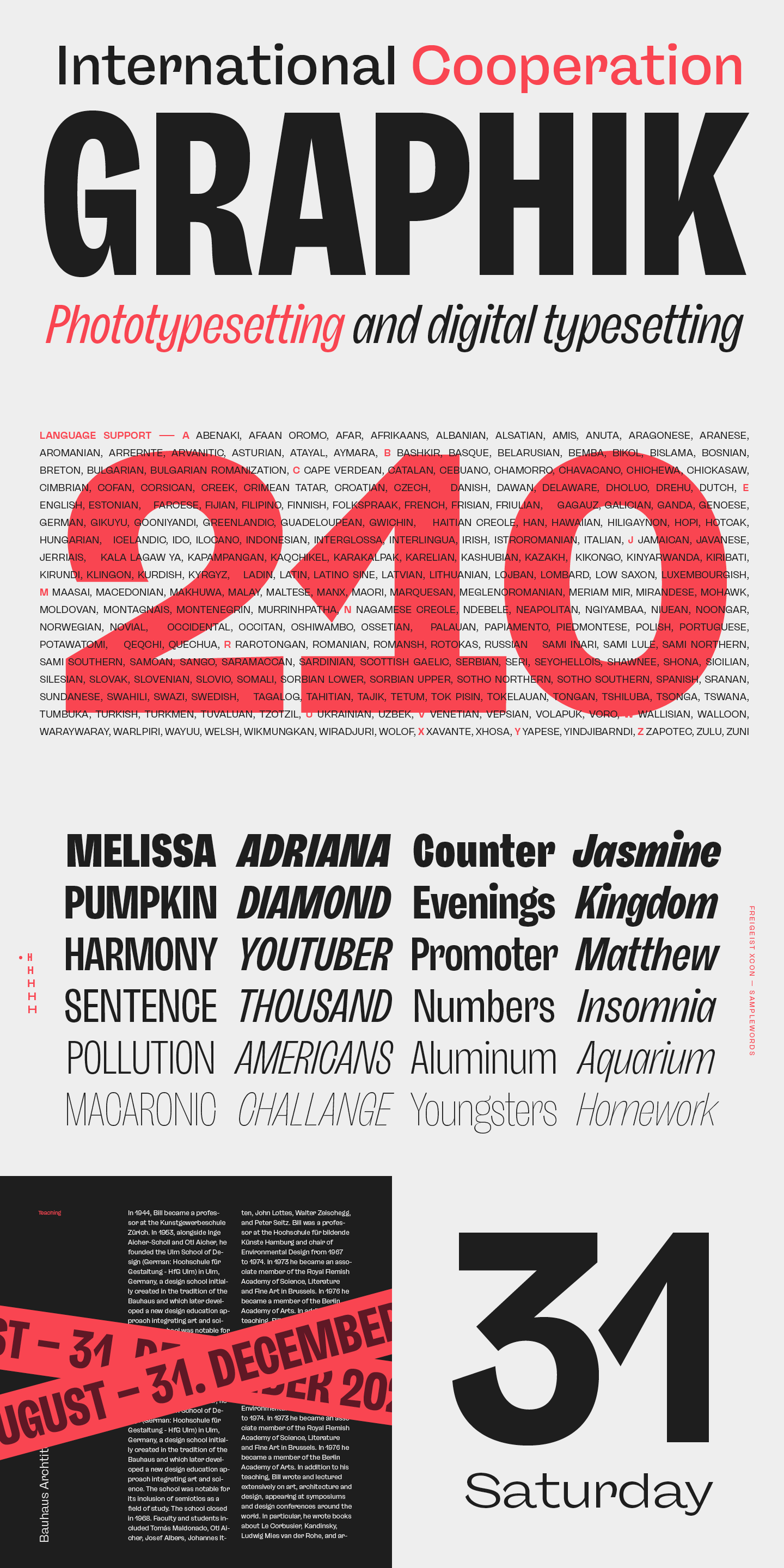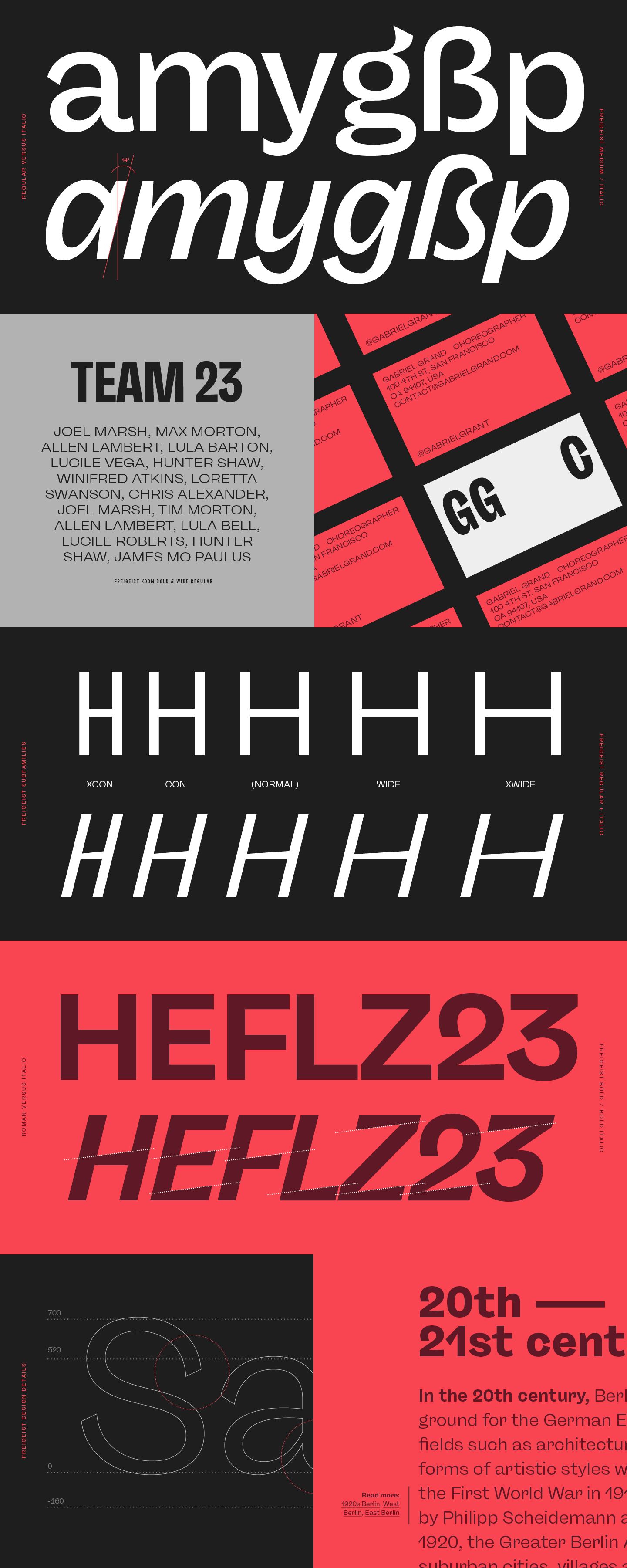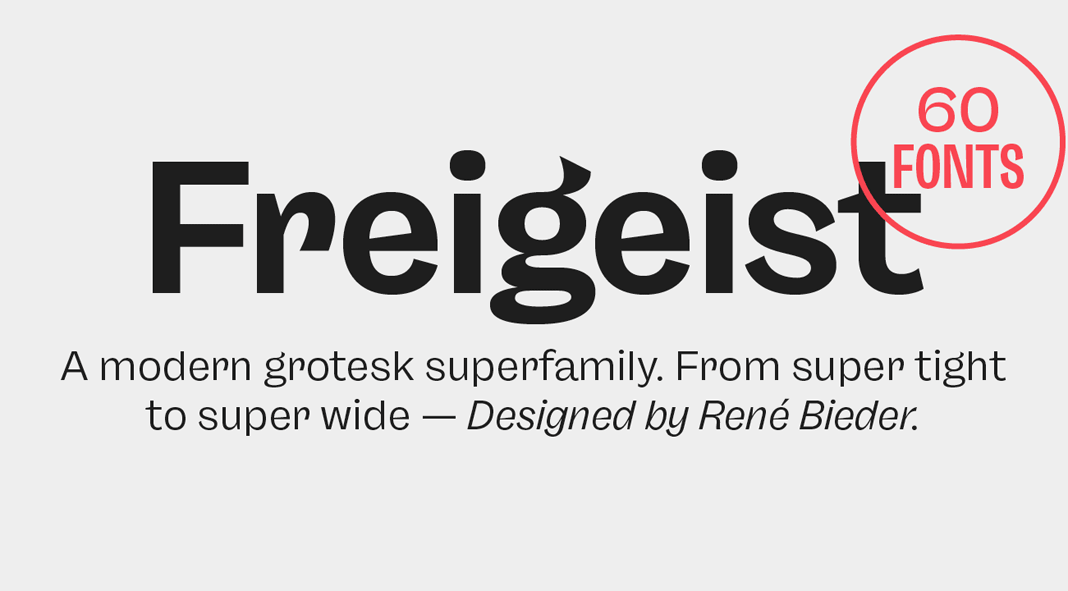
With Freigeist, German typeface designer René Bieder has created a unique superfamily consisting of a display sans and sans serif font family inspired by the early days of Grotesk typefaces.
The influences of the Freigeist font family are dating back long before Helvetica and other famous sans-serif typefaces have become standard fonts in our operating systems. The Freigeist font family captures the untamed pioneering innovations of type foundries from the 19th century such as Caslon or Stephenson Blake and puts them into a contemporary context. The result is a multi-faceted font family with a wide range of applications, styles, and features for today’s typesetting. Learn more below or click on one of the following links to purchase this outstanding family.
The characteristic design of Freigeist is dominated by a warm and dynamic style. It is inspired by various historical typeface designs such as Caslon’s Doric or the Grotesque variants of Stephenson Blake. Freigeist’s narrow terminals as well as its serpentine letter ‘S’ or the dynamic letter ‘g’ result in a unique appearance—especially in combination with ascenders that reach the cap-height only. Freigeist is available in five widths and six weights ranging from thin to black plus matching Italics. It supports both Latin and Cyrillic-based languages and covers over 210 languages. Furthermore, the family comes with numerous alternative letterforms as well as many OpenType features including ligatures, different number sets, etc. For further information, just click on one of the following links.